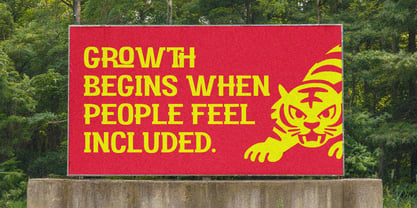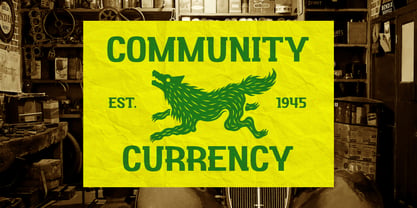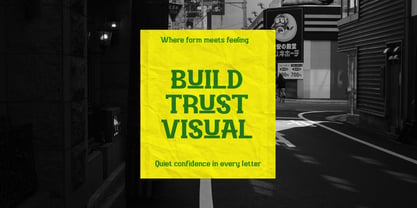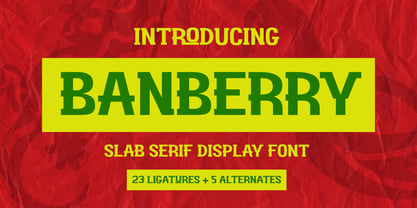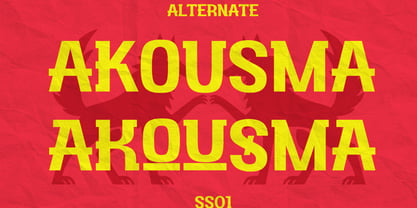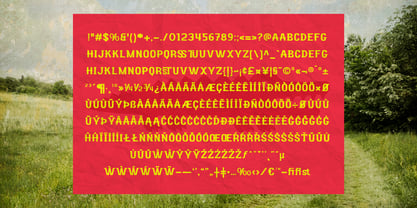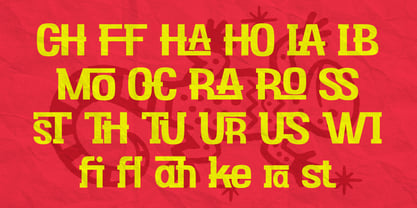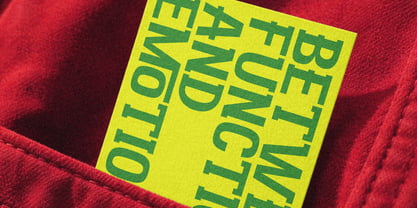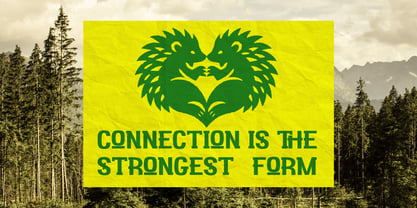
Banberry
von Sronstudio
Die Schriftfamilie Banberry wurde von Muhamad Yusron Billah entworfen und von Sronstudio veröffentlicht. Banberry enthält 2 Stile und Familienpaketoptionen. Mehr über diese Familie
Banberry is a slab serif display font that blends bold structure with a confident, eye-catching style. Its strong serifs and balanced proportions give it a solid yet friendly character, making it perfect for headlines, logos, posters, packaging, and branding projects that need to stand out. With its distinctive presence and versatile appeal, Banberry adds clarity, strength, and personality to any design. What’s Included: - Alternates & ligatures - Numerals & punctuation - PUA encoded for easy access - Multilingual support - Works seamlessly on Mac & Windows Thank you very much!
Designer: Muhamad Yusron Billah
Foundry: Sronstudio